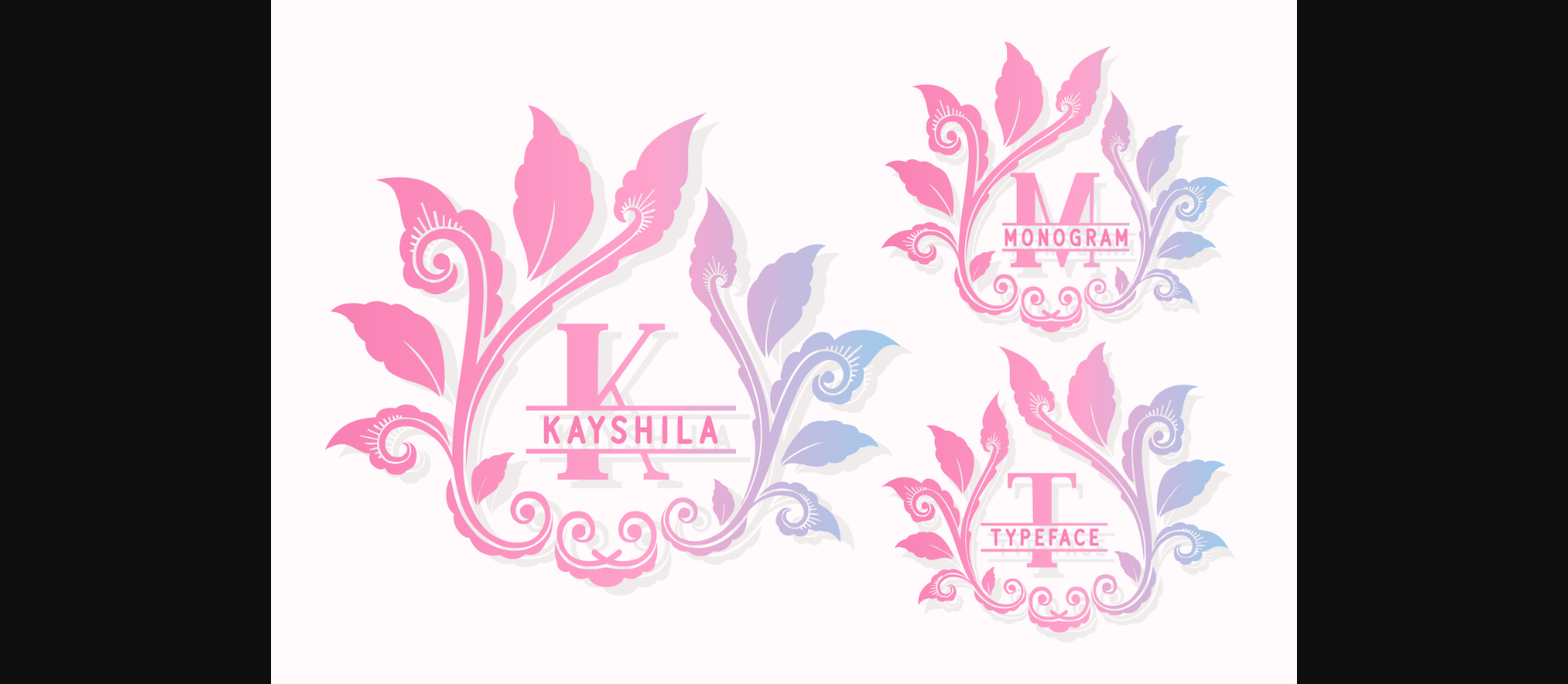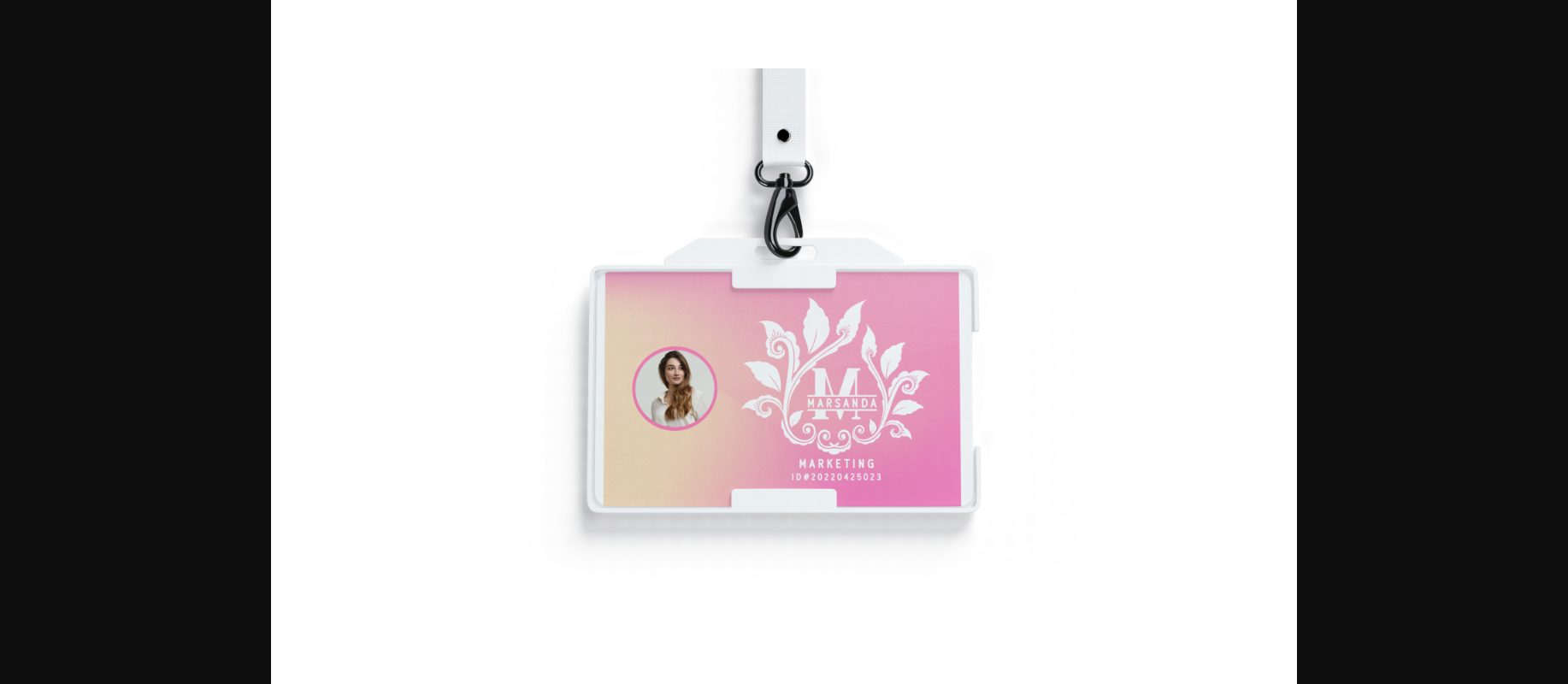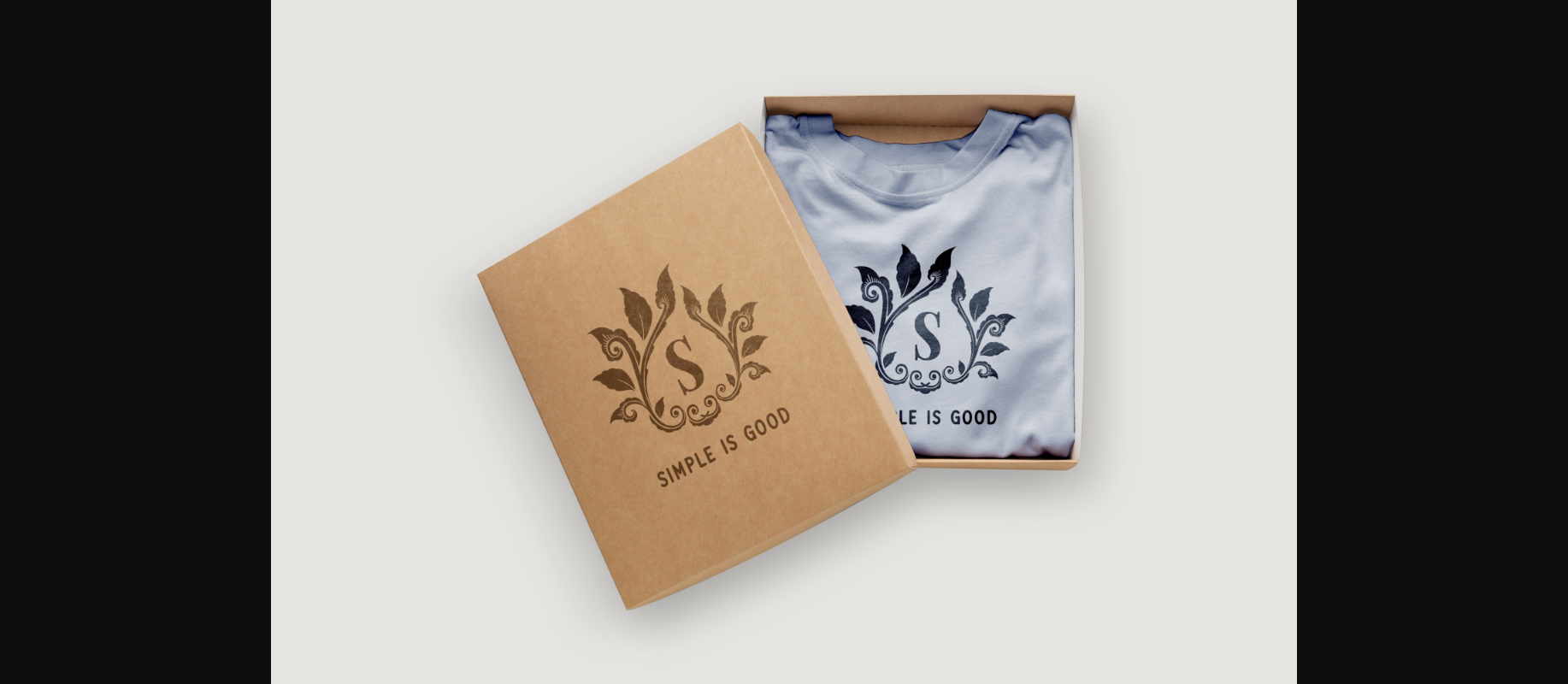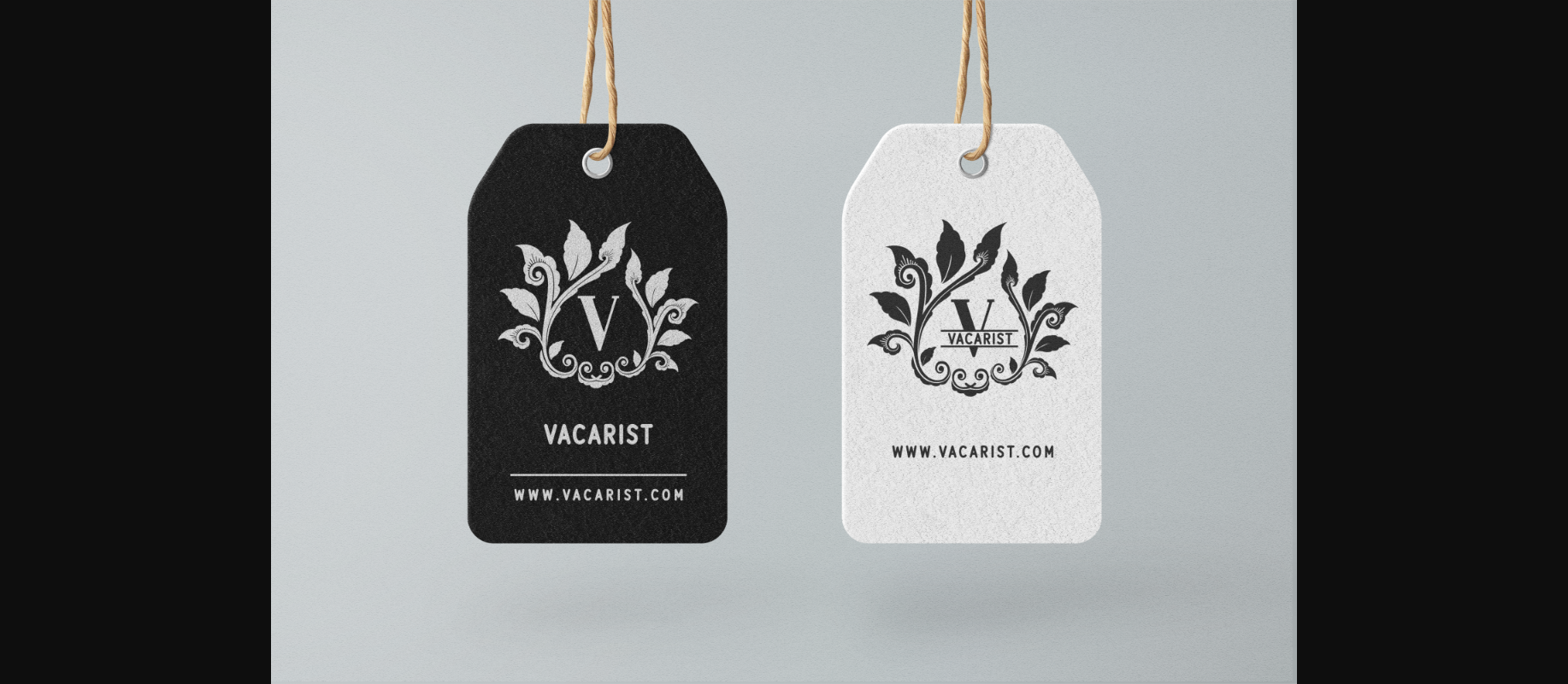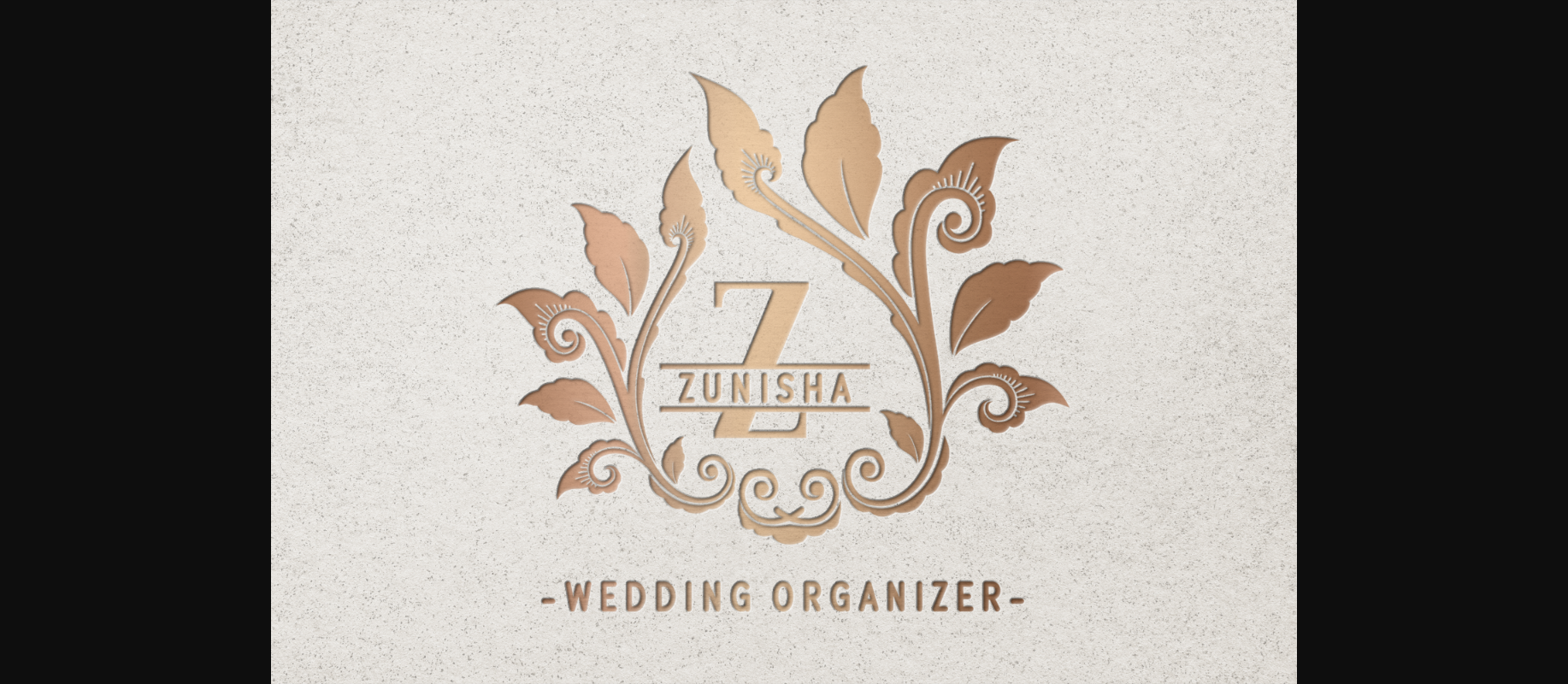
About Kayshila Font
Kayshila is a gorgeous and delicate decorative font. You can use it for various projects, such as blog posts, logos, branding, ads, invitations, greeting cards, planners, photo albums, decorations, and much more.